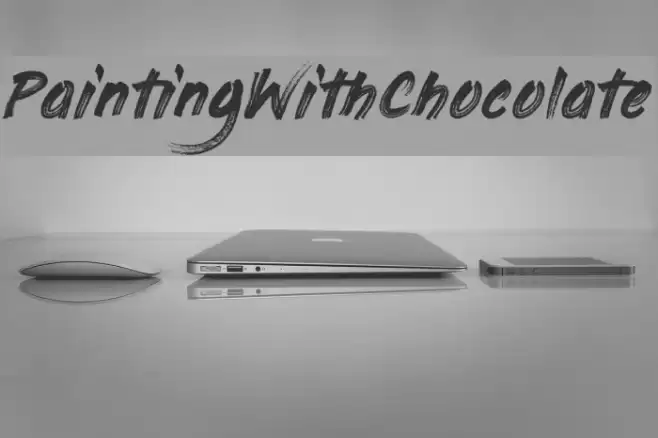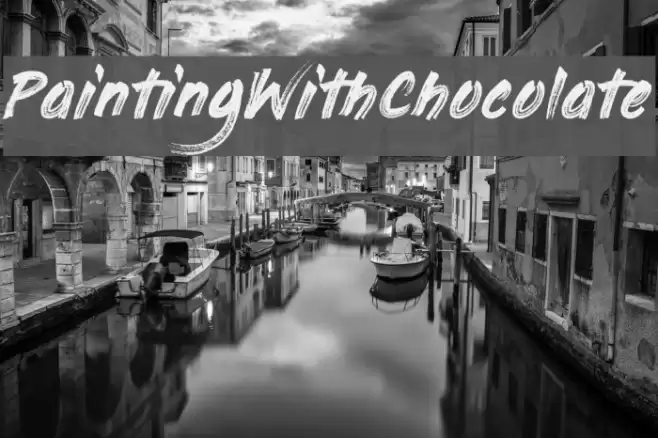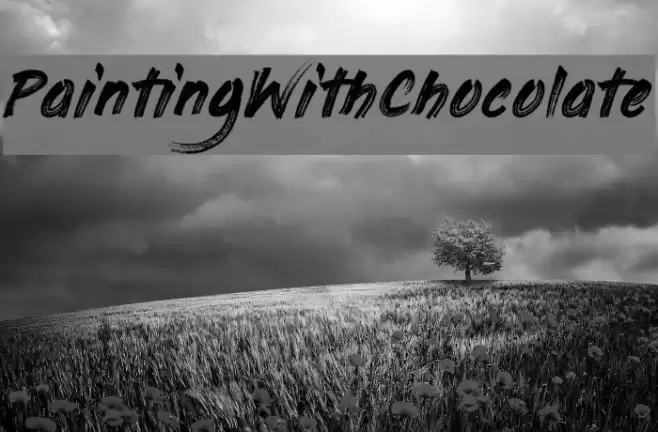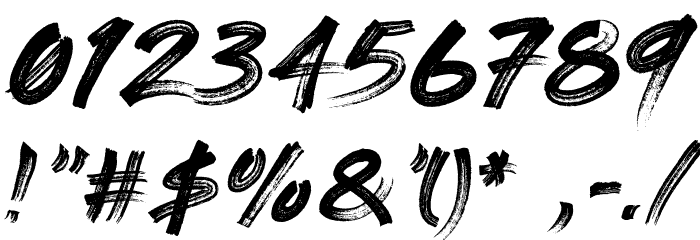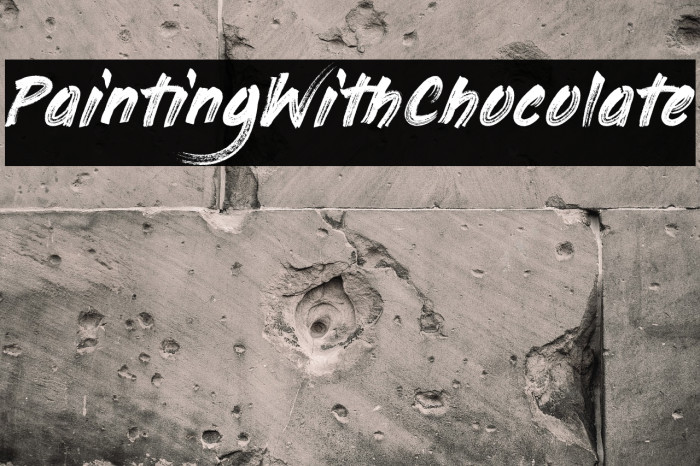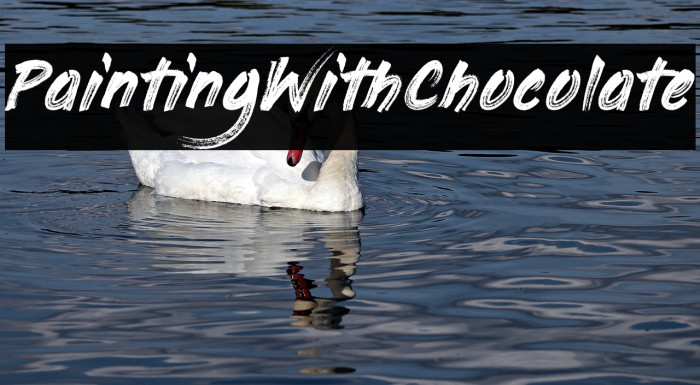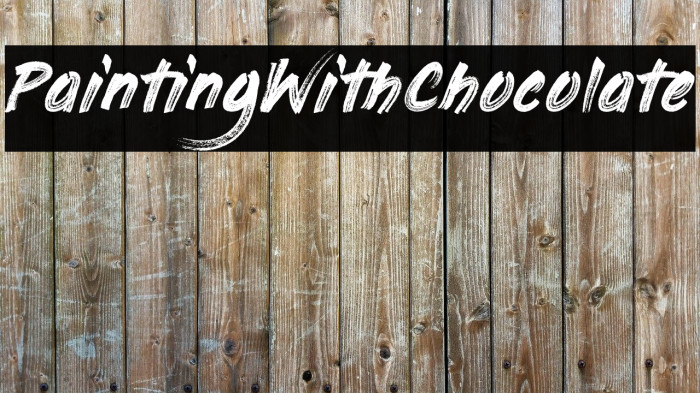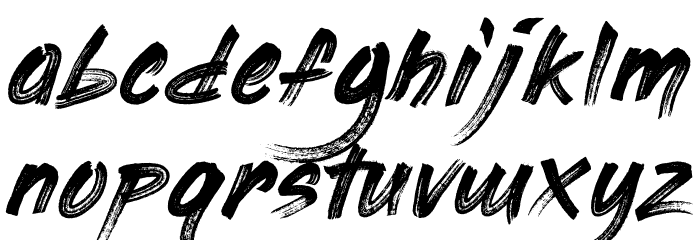
PaintingWithChocolate Font
PaintingWithChocolate Description
This font exudes a bold and dynamic energy, characterized by its brush-like strokes that convey a sense of movement and artistic flair. The letters are crafted with a textured appearance, as if painted with a thick brush, giving them a raw and expressive quality. The uppercase and lowercase letters maintain a consistent style, with each character exhibiting unique brushstroke variations that add to the overall aesthetic. The numerals and special characters follow the same artistic theme, ensuring a cohesive look across all elements. This font is ideal for projects that require a touch of creativity and boldness.
A bold, brush-stroke font with dynamic and artistic flair from Script fonts.
- Font: PaintingWithChocolate
by mooze - Weight: Regular
- Proposed Projects: Perfect for artistic posters, creative branding, dynamic headlines, and expressive design projects.
- Overall Style: Artistic, Dynamic, Expressive